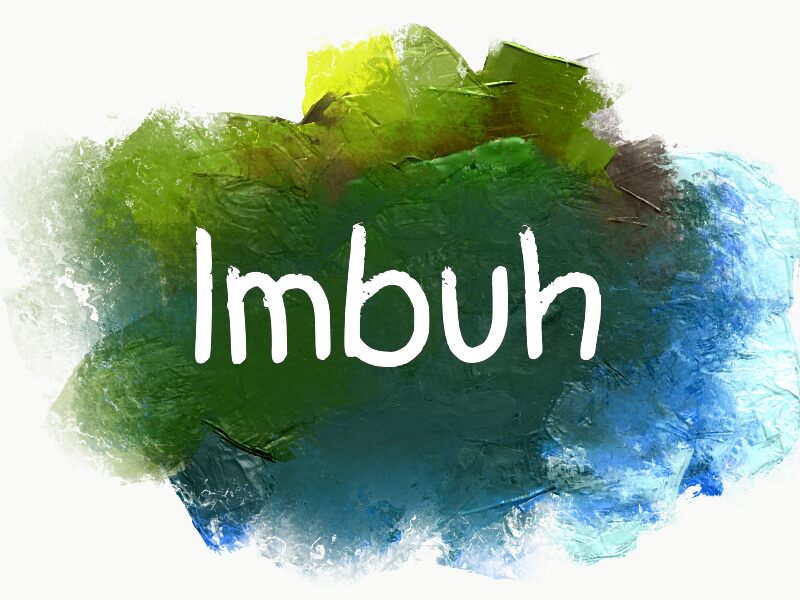
i Imbuh font designed by wep is a free handwritten font that has a relaxed personal feel. Letters created have smooth lines and uneven ends that transform simple designs into special ones. And with its modern and approachable presentation, it gives plenty of options for branding and packaging designs related to food items and snacks or businesses like fast-food restaurants and grocery stores.
i Imbuh font is easy to apply and will look great in posters and digital applications. Other commercial and personal design projects also include flyers, business cards, magazines and newspapers, book covers, websites, blogs, and social media posts.
Imbuh is a captivating free font designed to elevate your creative projects. With its unique character set and versatile style, Imbuh is perfect for a wide range of applications, including branding, advertising, and print media.
This font combines modern aesthetics with readability, making it an excellent choice for both digital and traditional designs. Whether you're crafting a logo, designing a poster, or developing a website, Imbuh ensures that your text stands out.